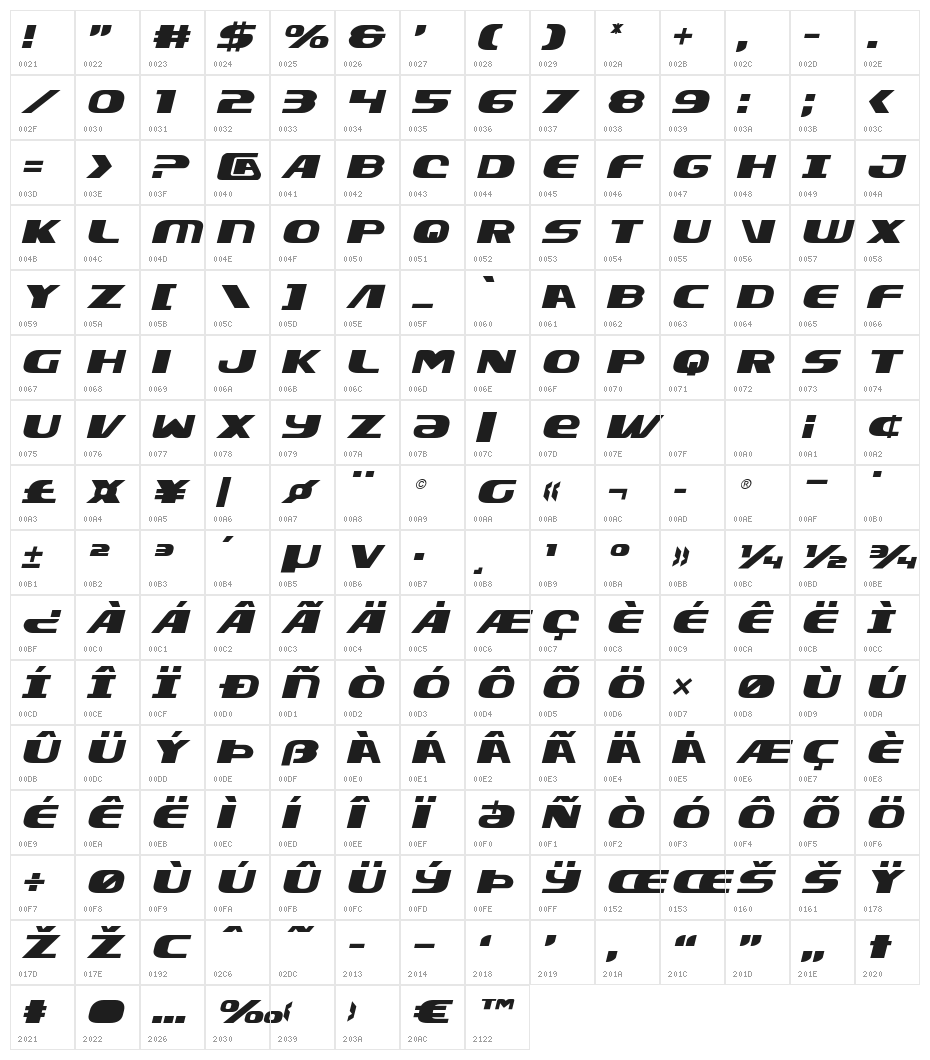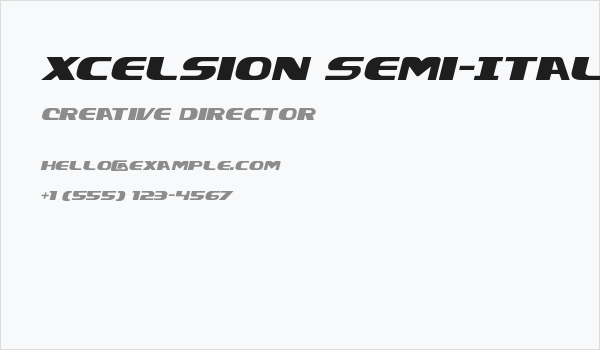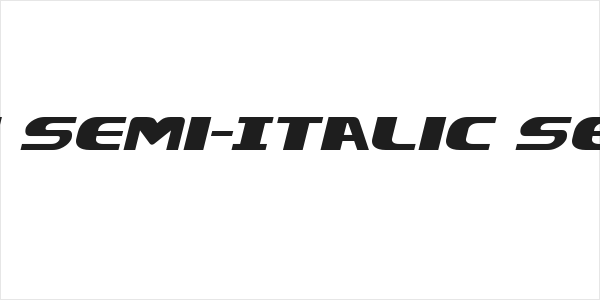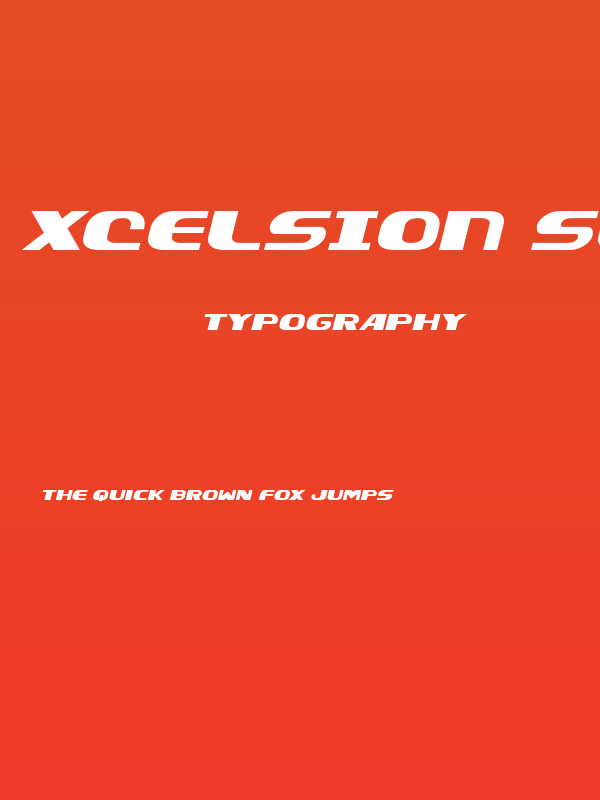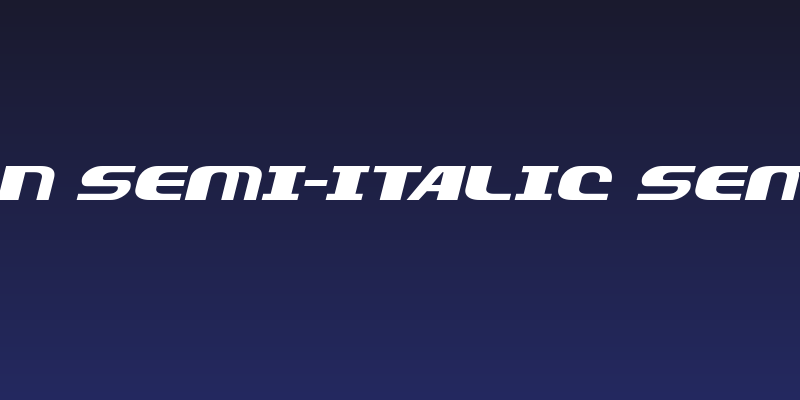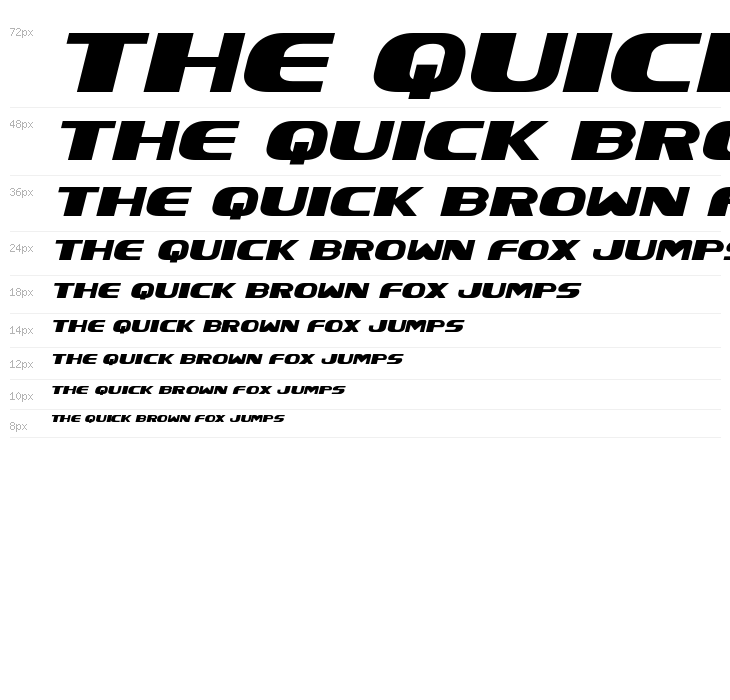
Xcelsion Semi-Italic Font
Xcelsion Semi-Italic Description
This font features a bold and dynamic design with a semi-italic slant, giving it a sense of motion and energy. The characters are wide and slightly condensed, with a futuristic and sporty aesthetic. The strokes are thick and consistent, providing a strong visual impact. The uppercase and lowercase letters maintain a uniform style, while the numerals and special characters complement the overall look. This font is ideal for projects that require a modern and energetic feel, such as sports branding, technology advertisements, or dynamic headlines.
| Proposed Projects | Ideal for sports branding, technology advertisements, dynamic headlines, and modern design projects. |